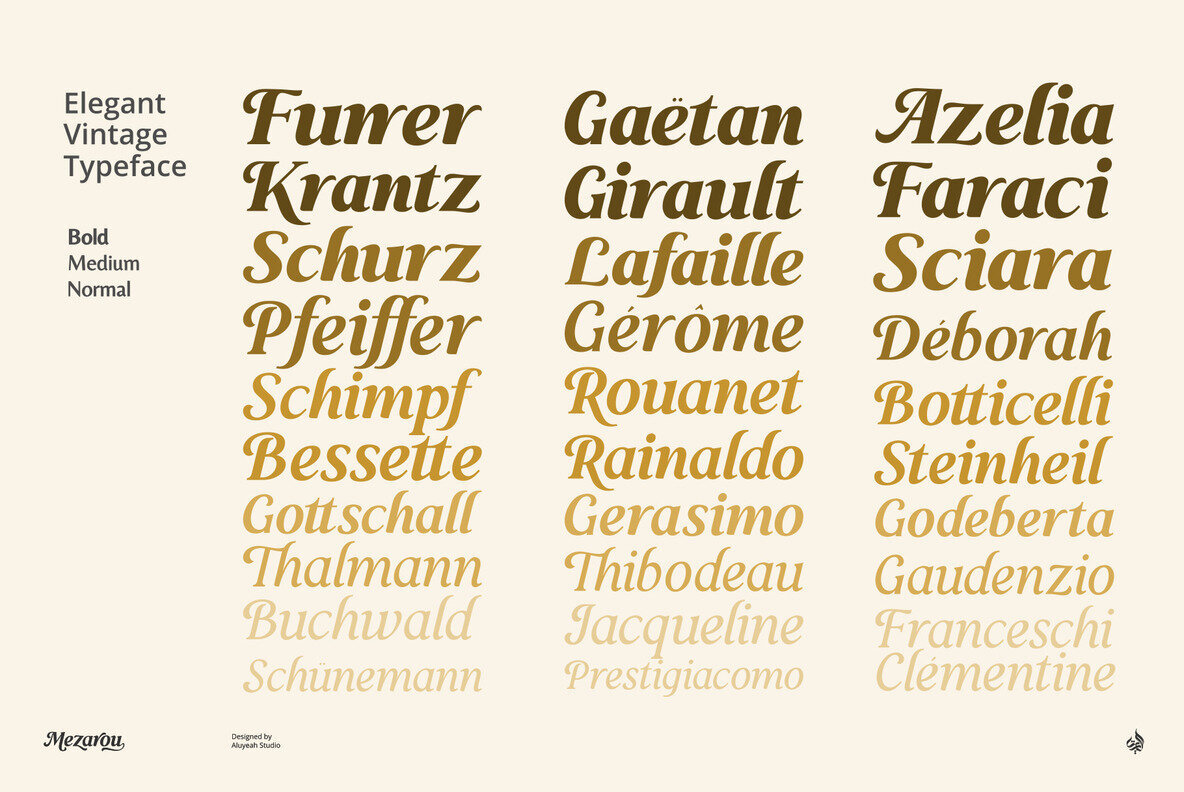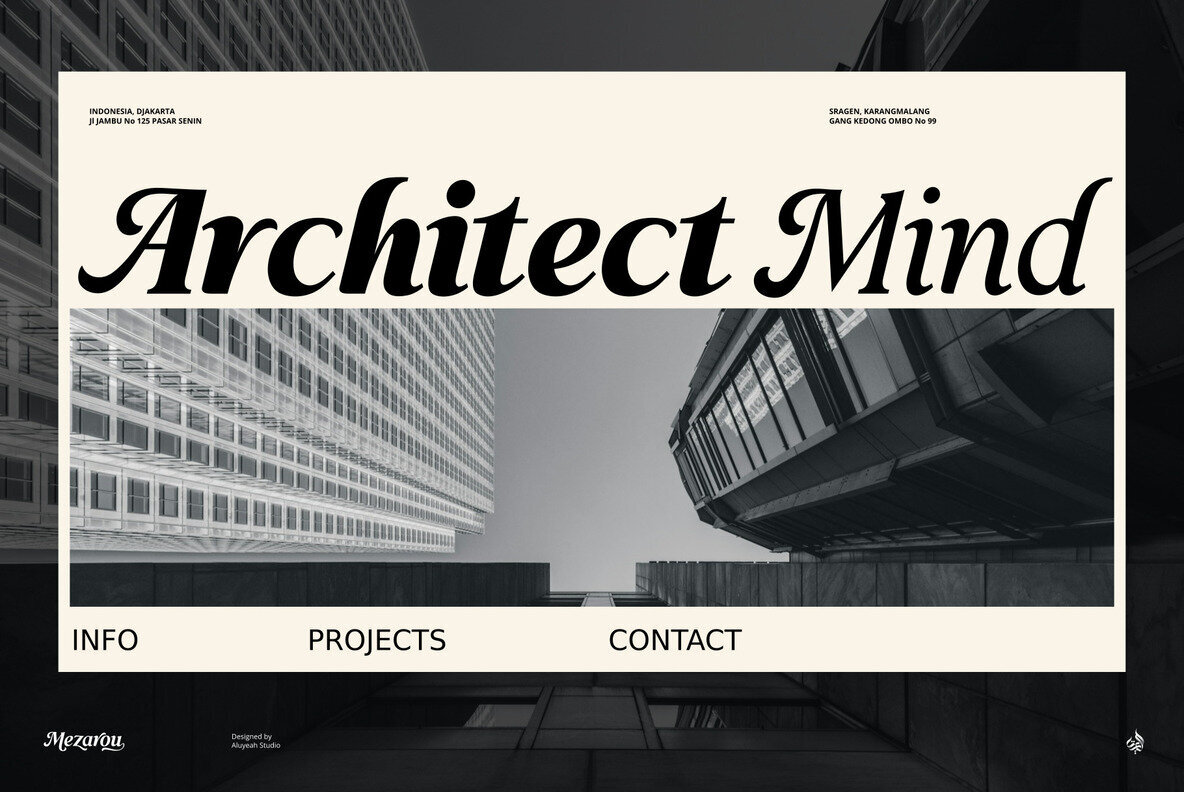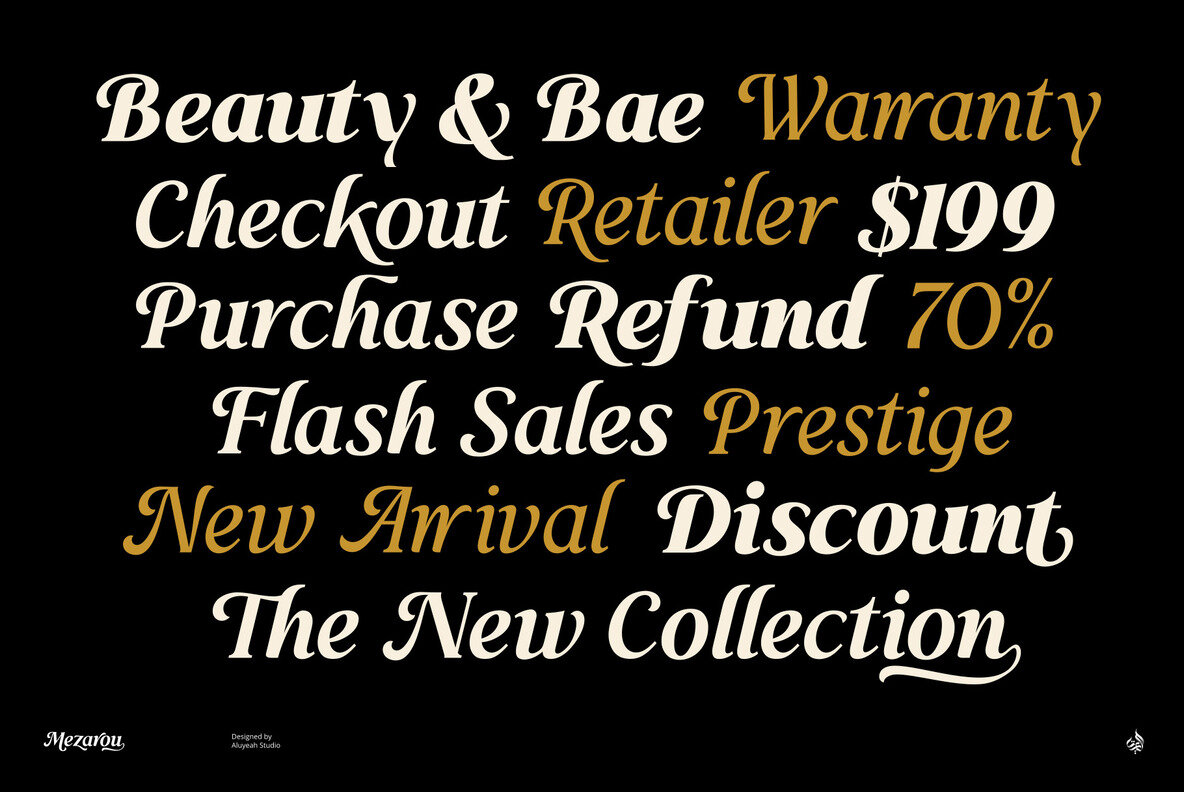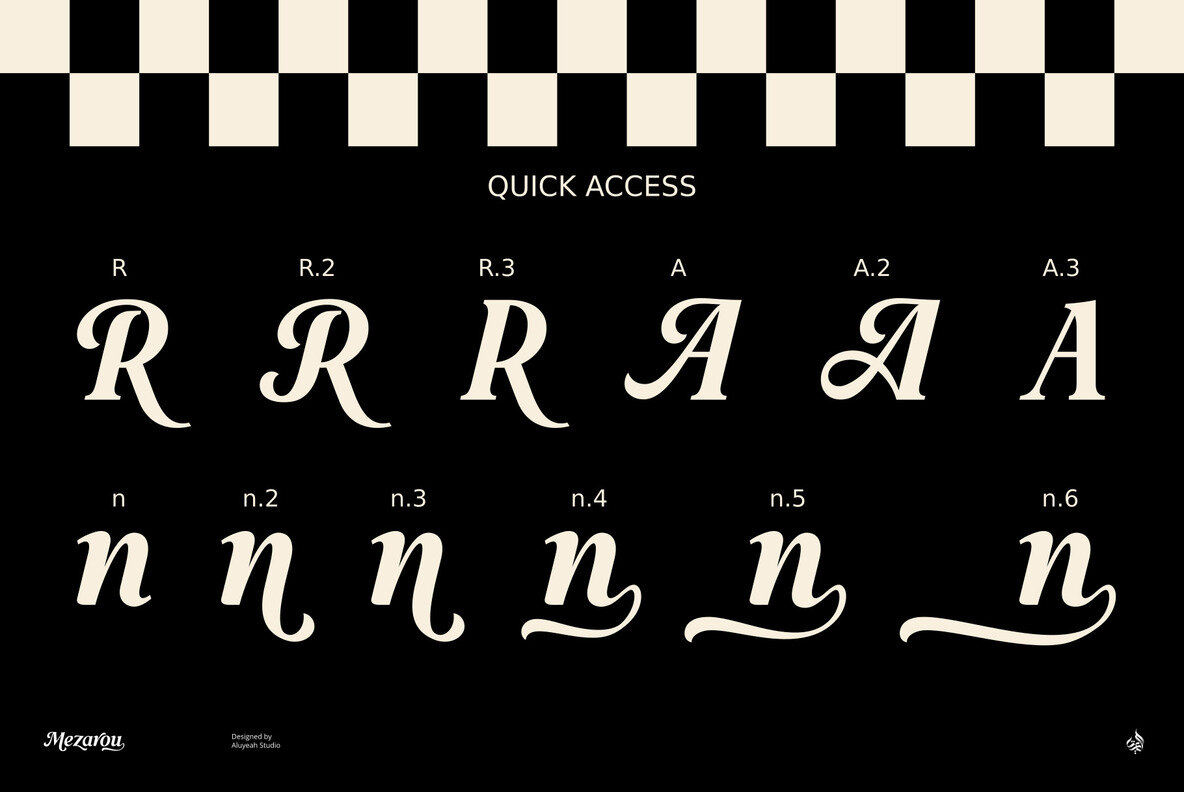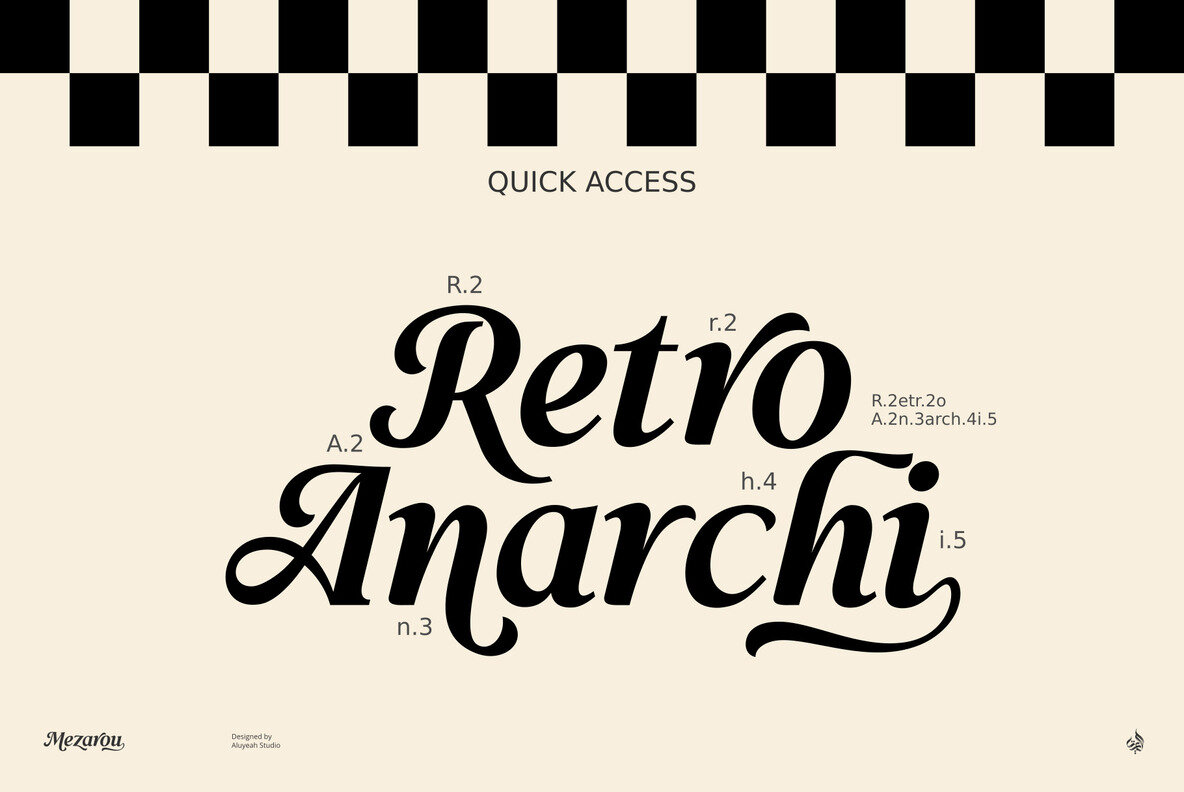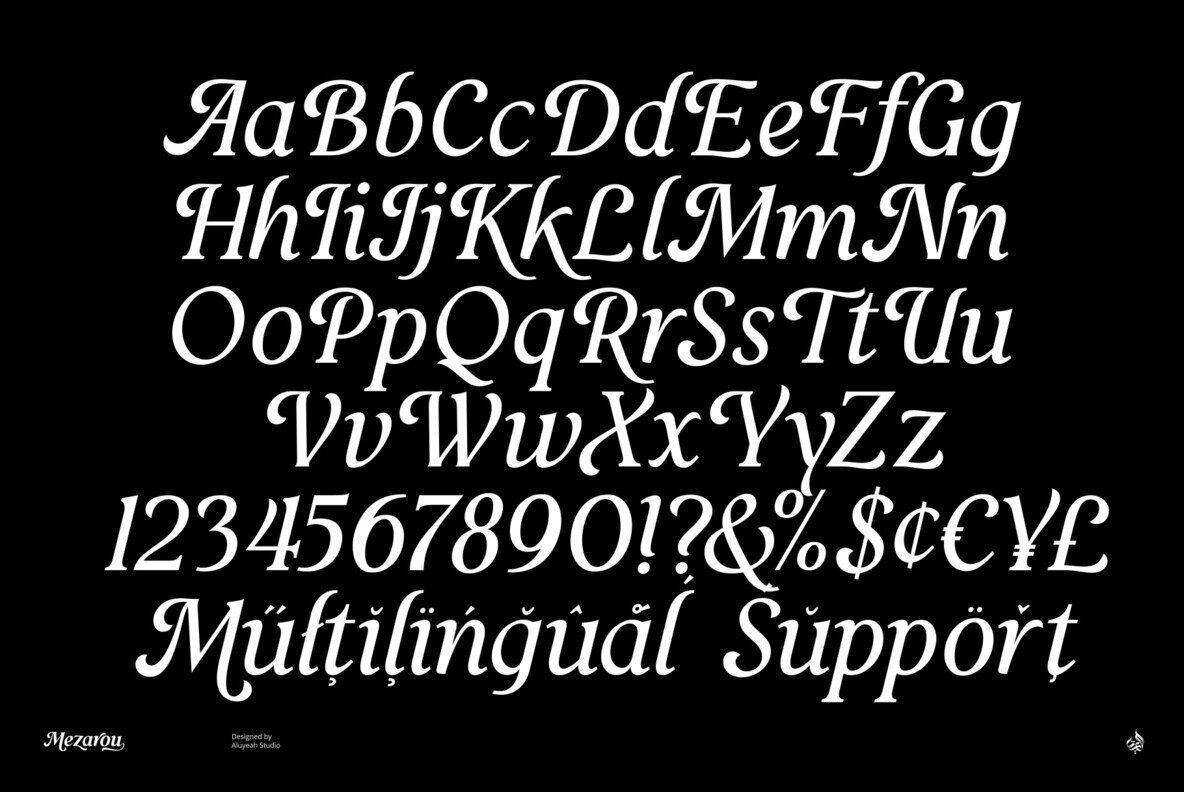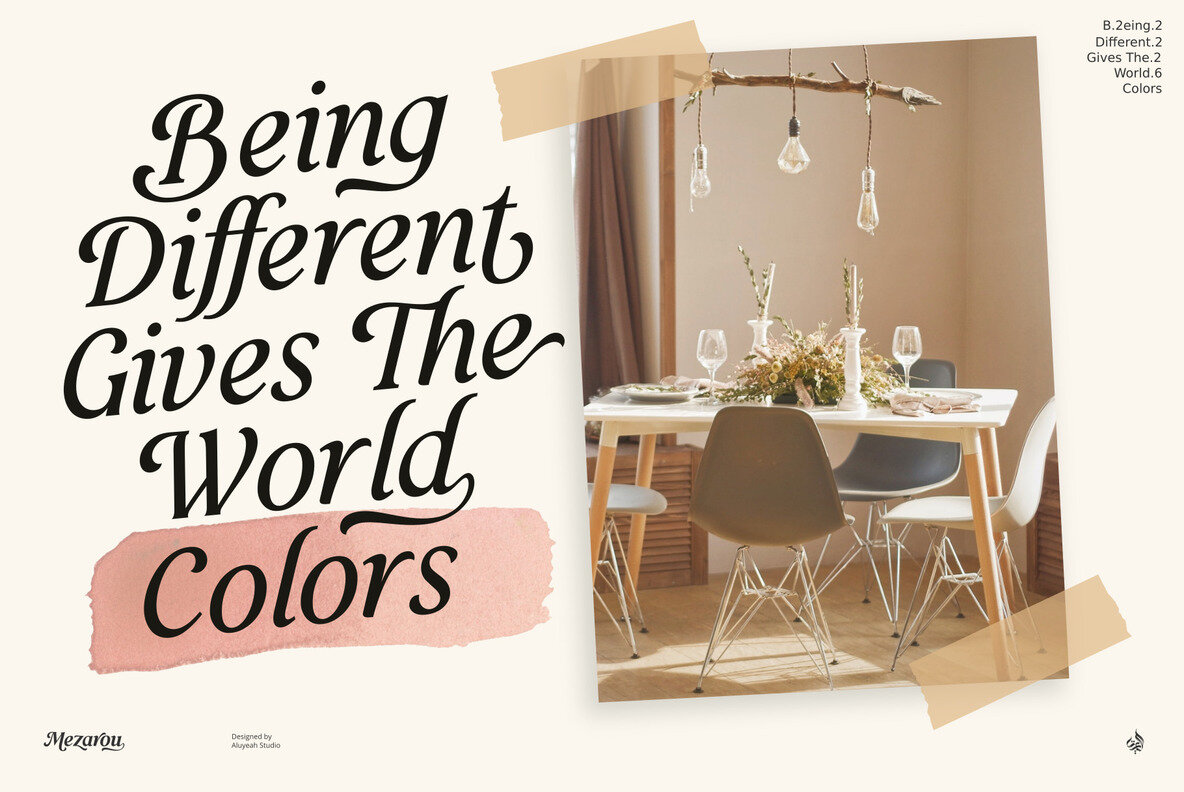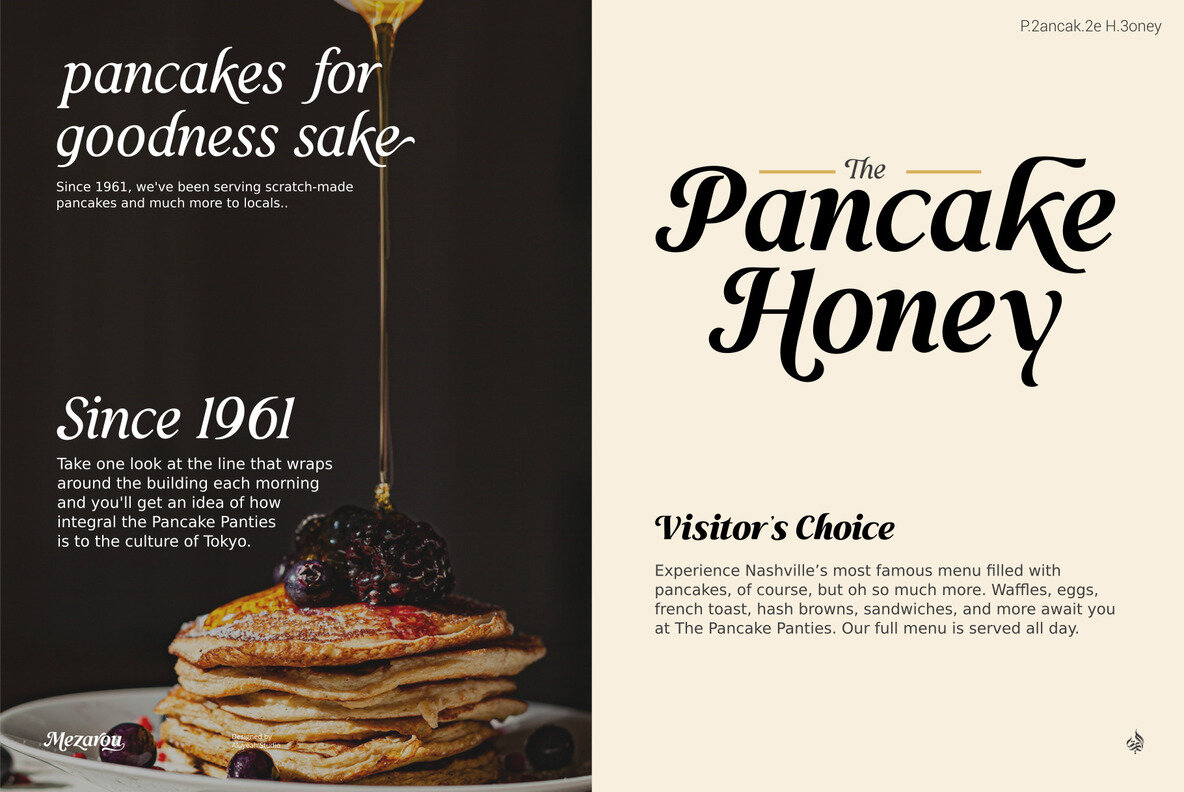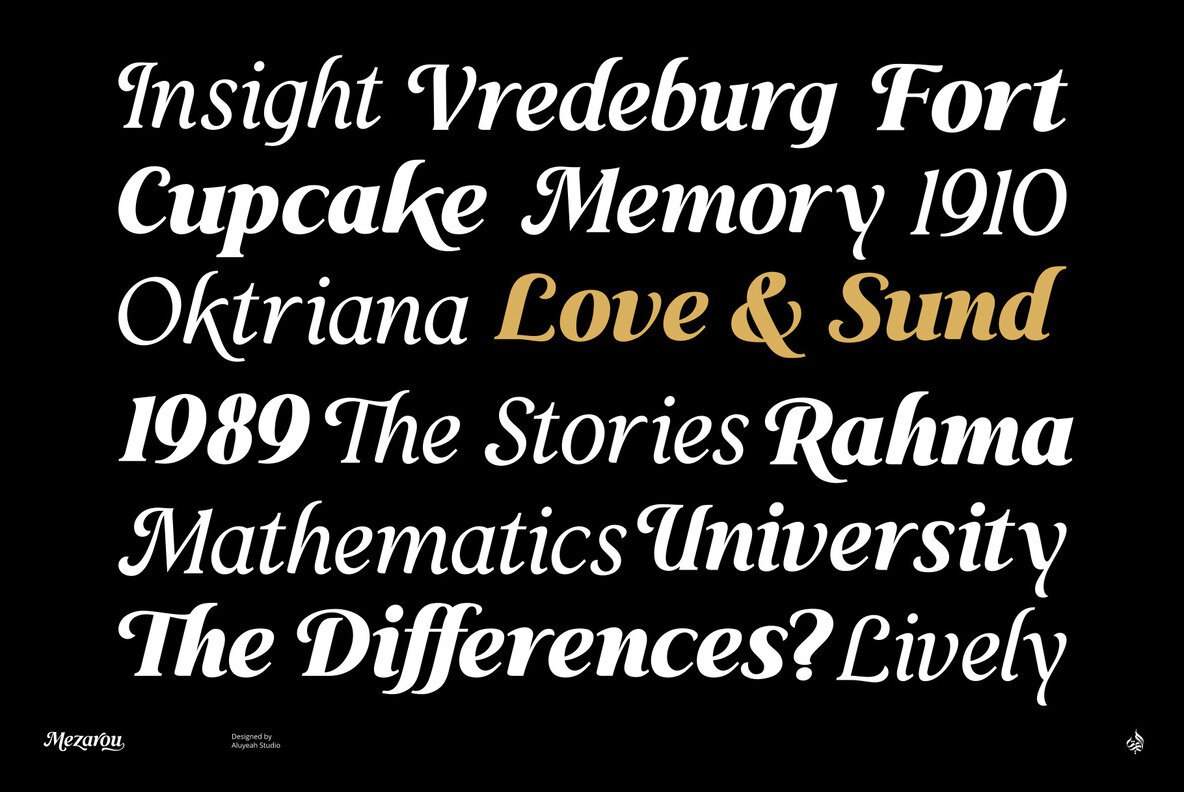
Mezarou Font
Al Mezarou Normal
Al Mezarou Medium
Al Mezarou Bold
Discover the charm of Mezarou, a vintage typeface that effortlessly adds a retro flair to your design projects. This elegant font features over 100 alternates and ligatures, offering endless possibilities for crafting unique and captivating designs. With three varying weights available, Mezarou provides enhanced versatility, allowing you to tailor your typography to just the right mood. It's ideal for a wide range of applications, including packaging, magazines, headlines, websites, and advertising.
Mezarou is equipped with OpenType support and multilingual capabilities, catering to 67 languages, making it a versatile choice for a global audience. The typeface is PUA encoded, offering user-friendly access to alternate characters through quick access combinations such as A.2, A.3, a.2, and m.6. Complete your design toolkit with this timeless font that ensures stunning and adaptable layouts for all your creative endeavors.